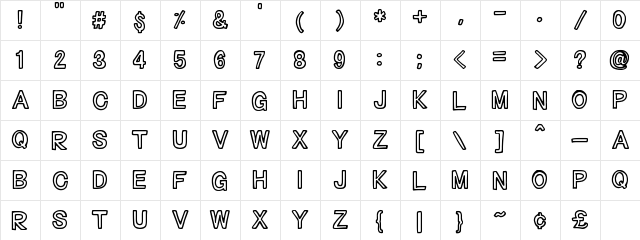
Outliners Regular
Design Context for Outliners Typeface
Outliners is built around its visual character rather than neutral utility — its distinctive forms are designed to make an impression at display sizes.
Font Pairing: Pair with a clean neutral sans-serif for body copy to let Outliners's character lead without overwhelming the composition.
Pro Tip: Treat Outliners as the centrepiece of your typographic hierarchy. One strong heading set in a decorative face can carry an entire layout.